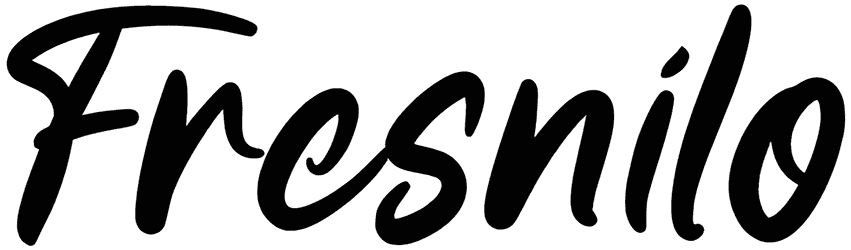
Fresnilo Font
If you want to guarantee the success of your creative content, we offer a beach script font such as Fresnilo to you that would be really precious for any graphic designer who wants to bring a sense of personalization, drama, softness, delicacy, and harmony to their artwork including posters, web pages, the user interface of applications, flyers, and logos.